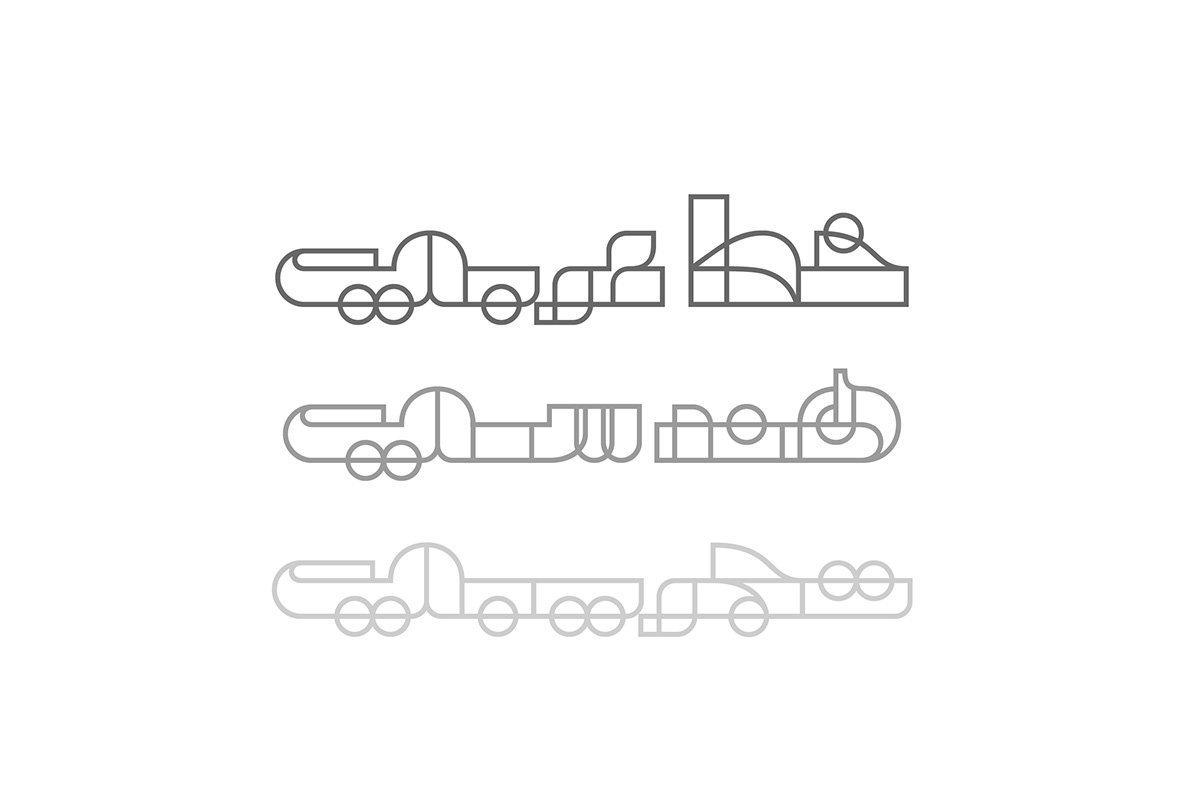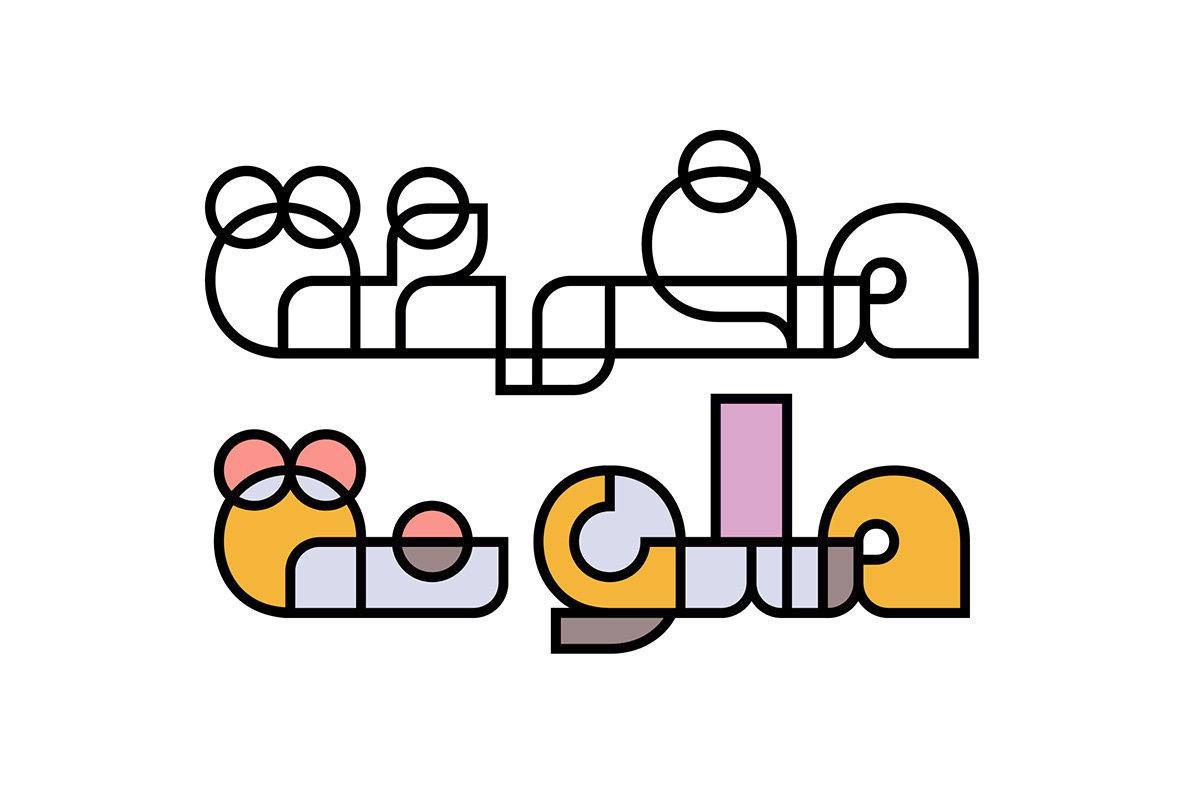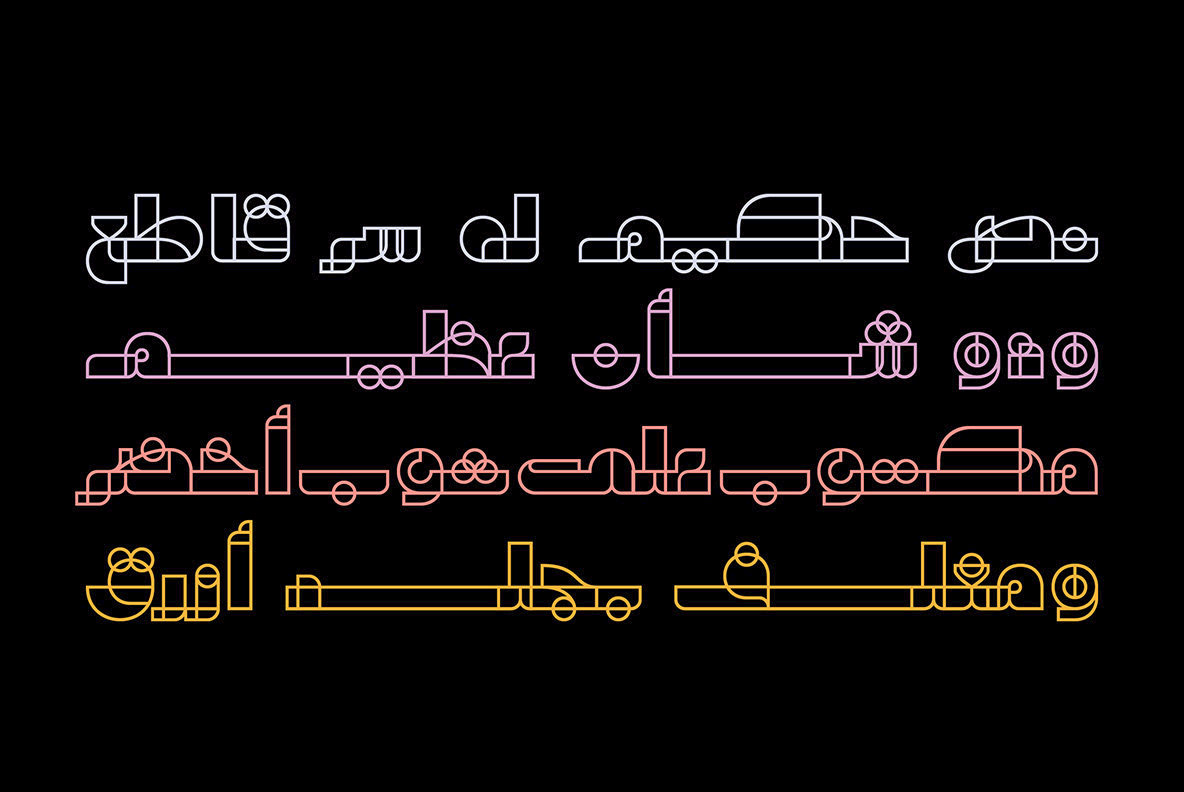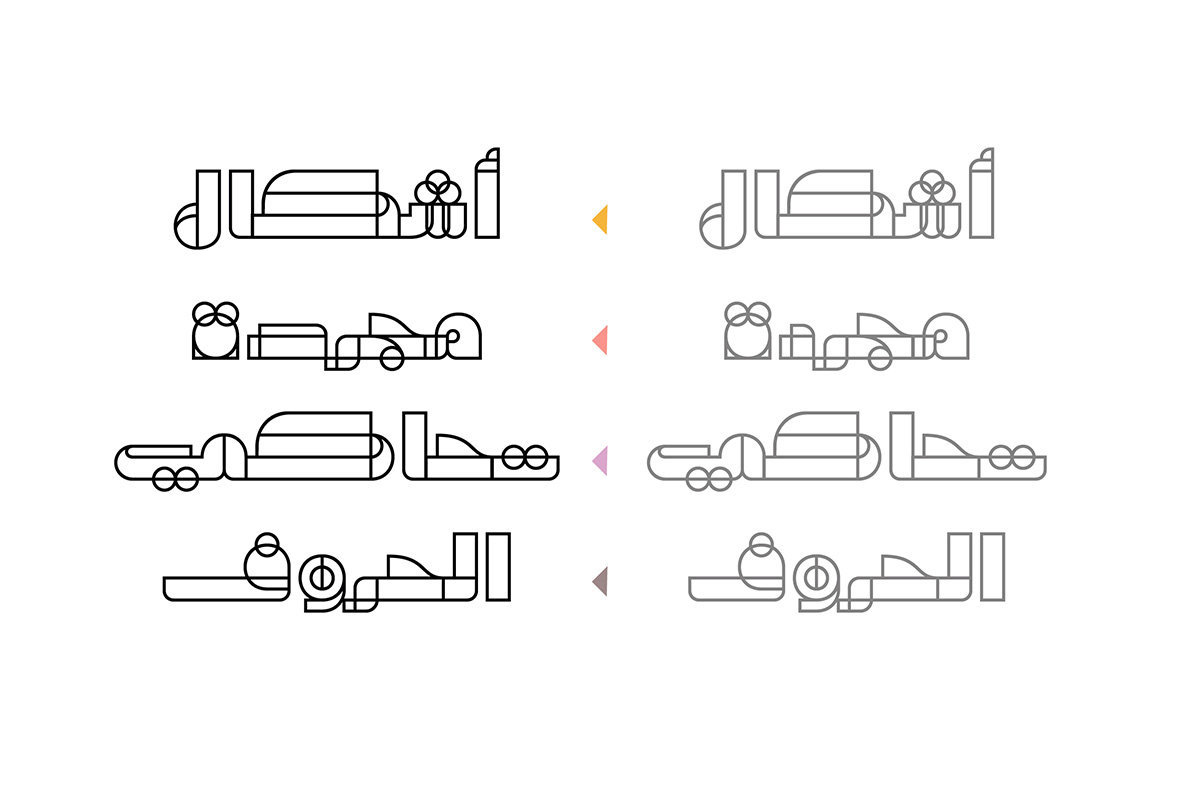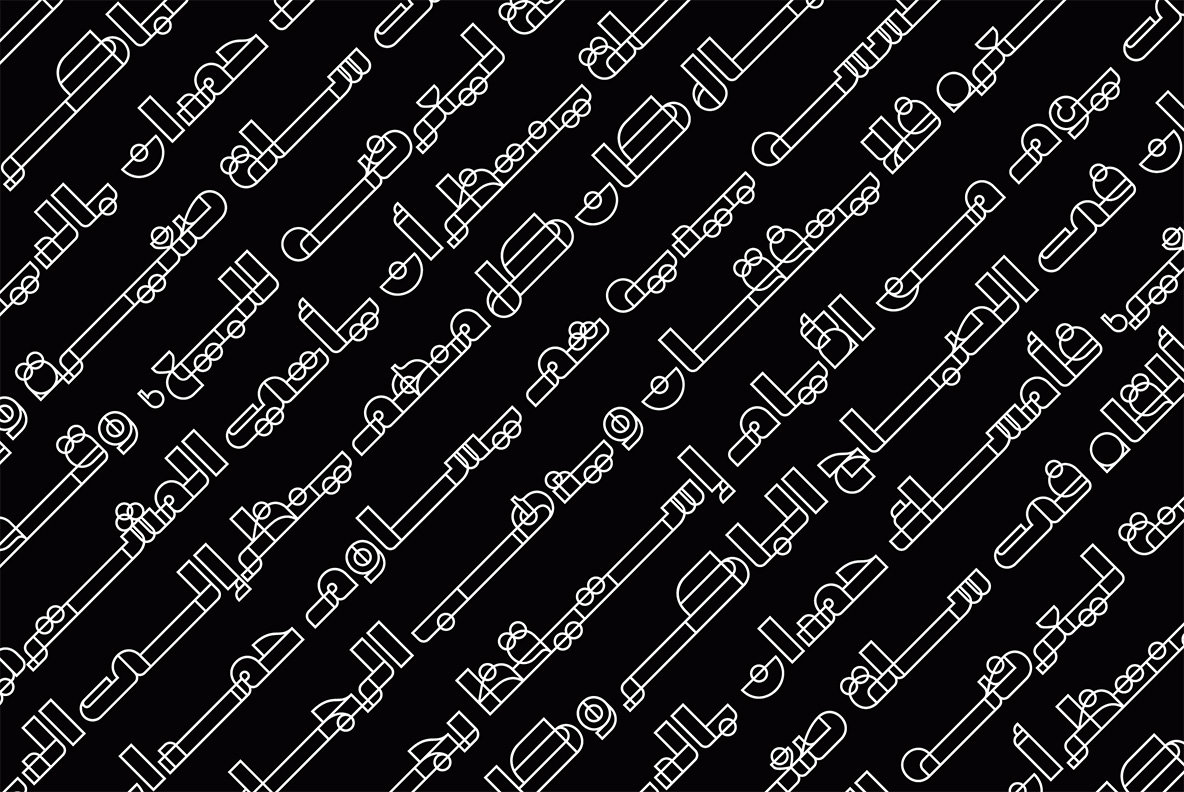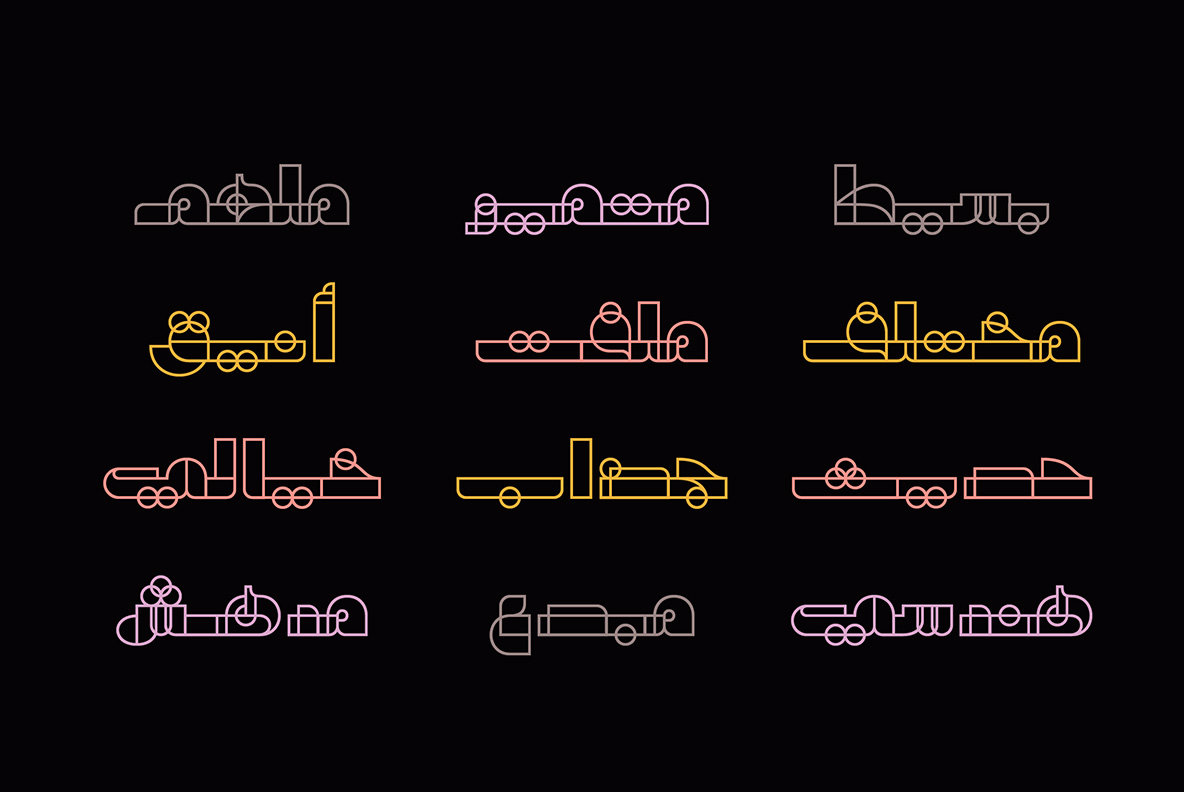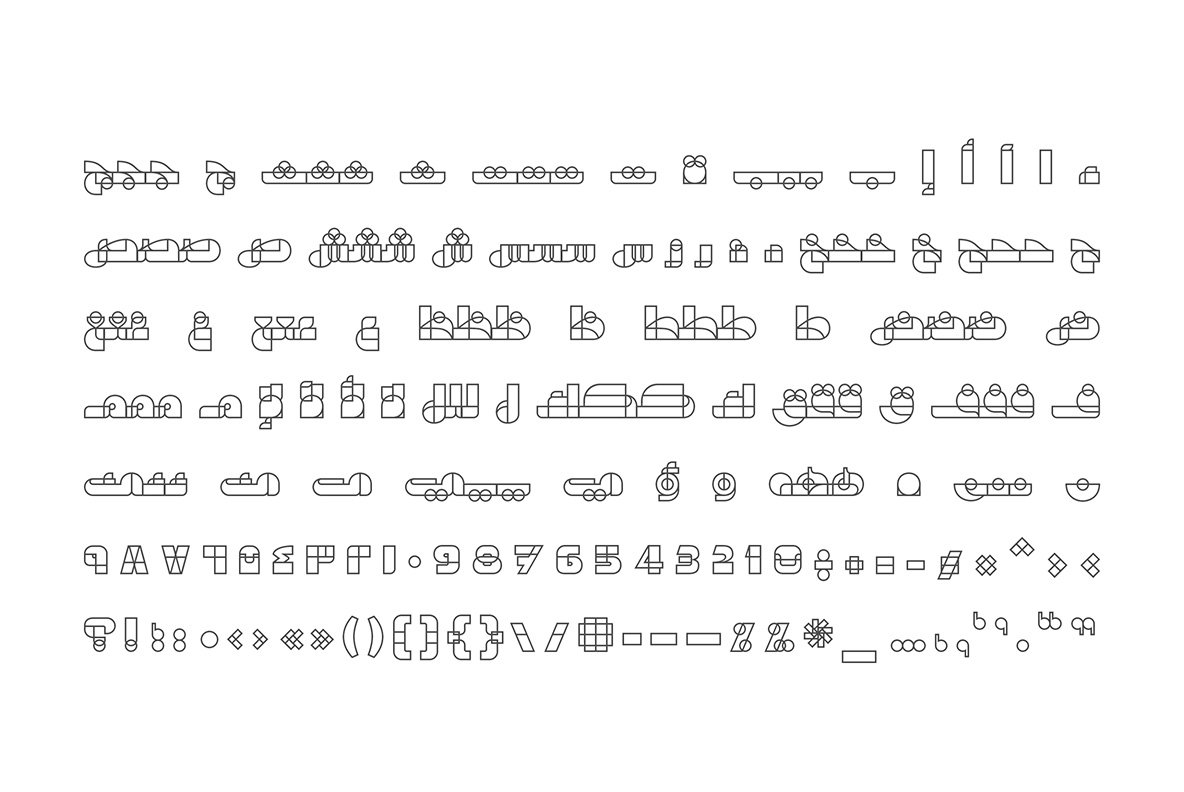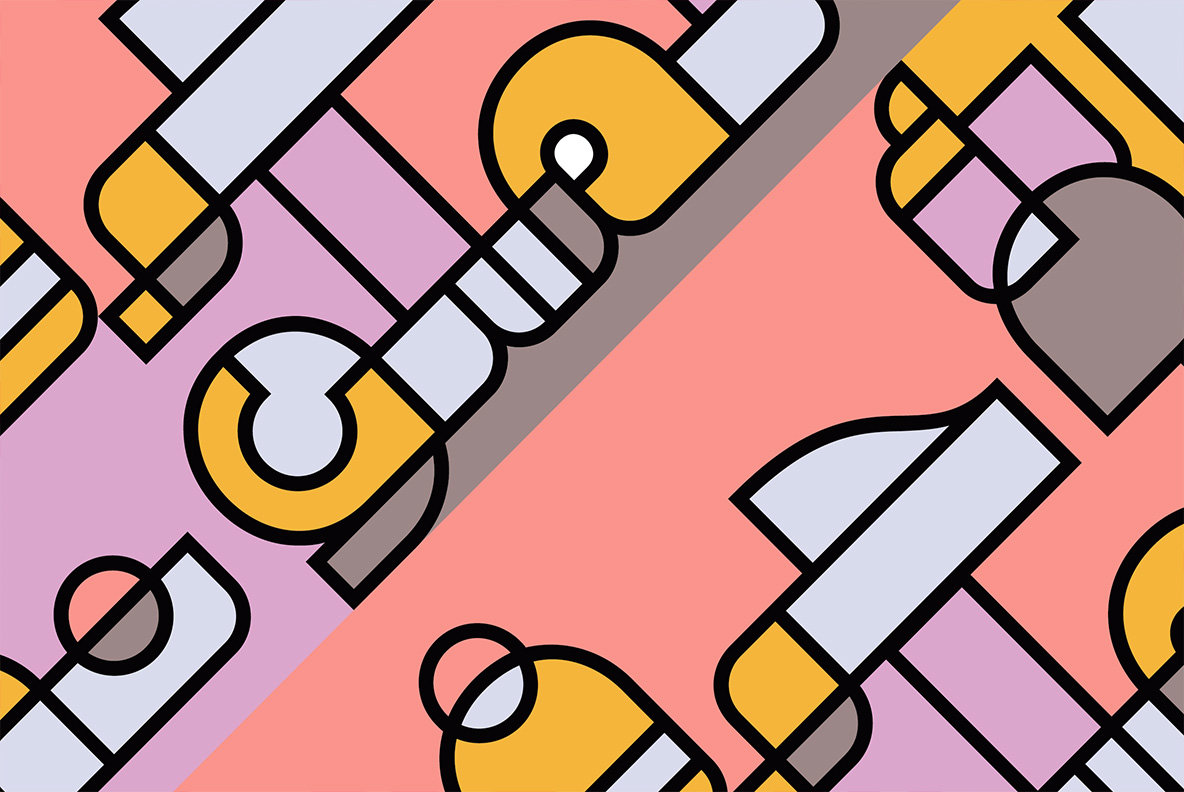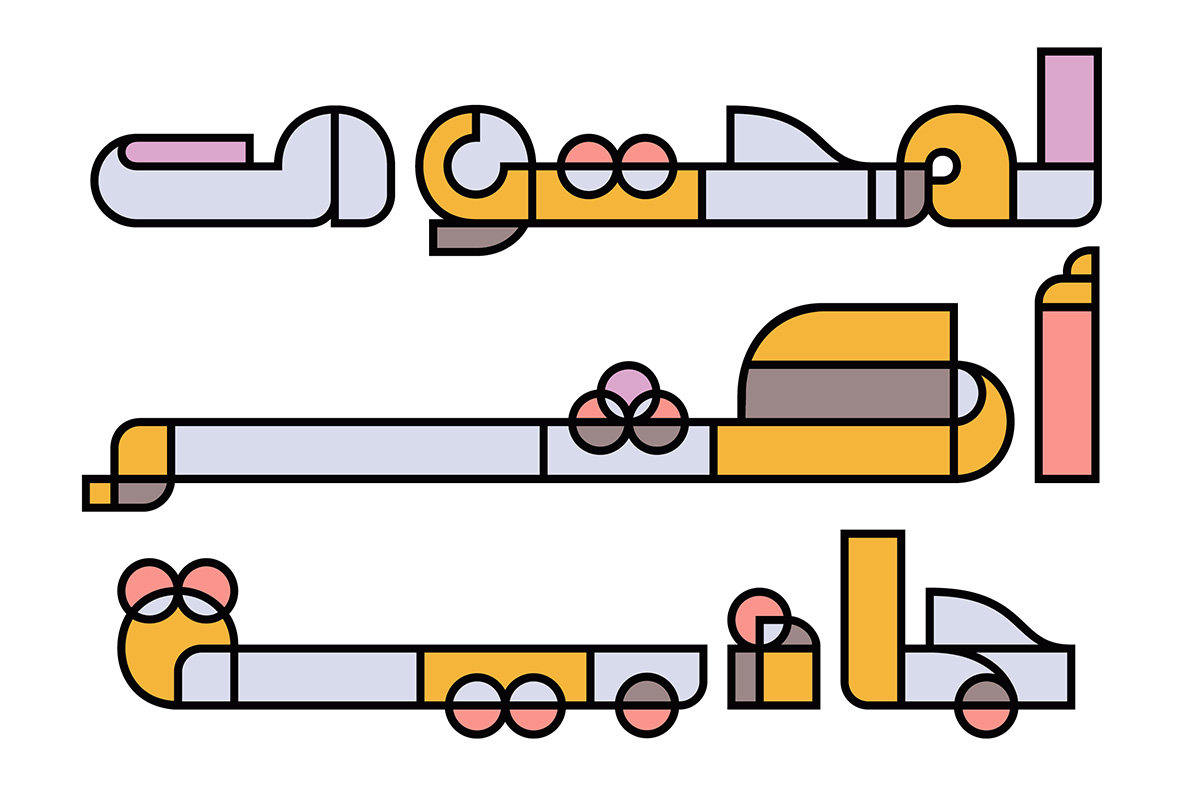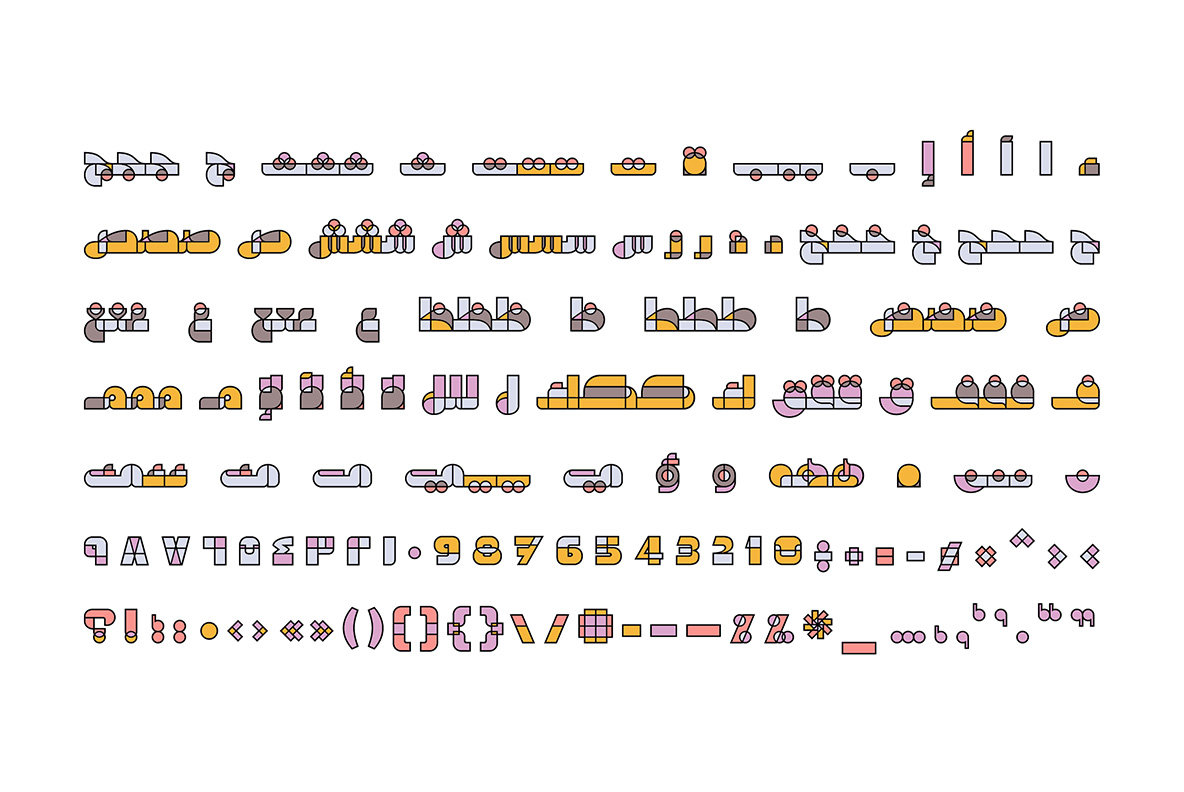
Tajreed Font
Tajreed is an Arabic display font that is inspired by the Abstract art. The word Tajreed is the Arabic for Abstract. The font features a stylistic set In addition to a multicolored twin that expands its applications by bringing a unique color palette to the typing experience. Tajreed suits both print and web design.